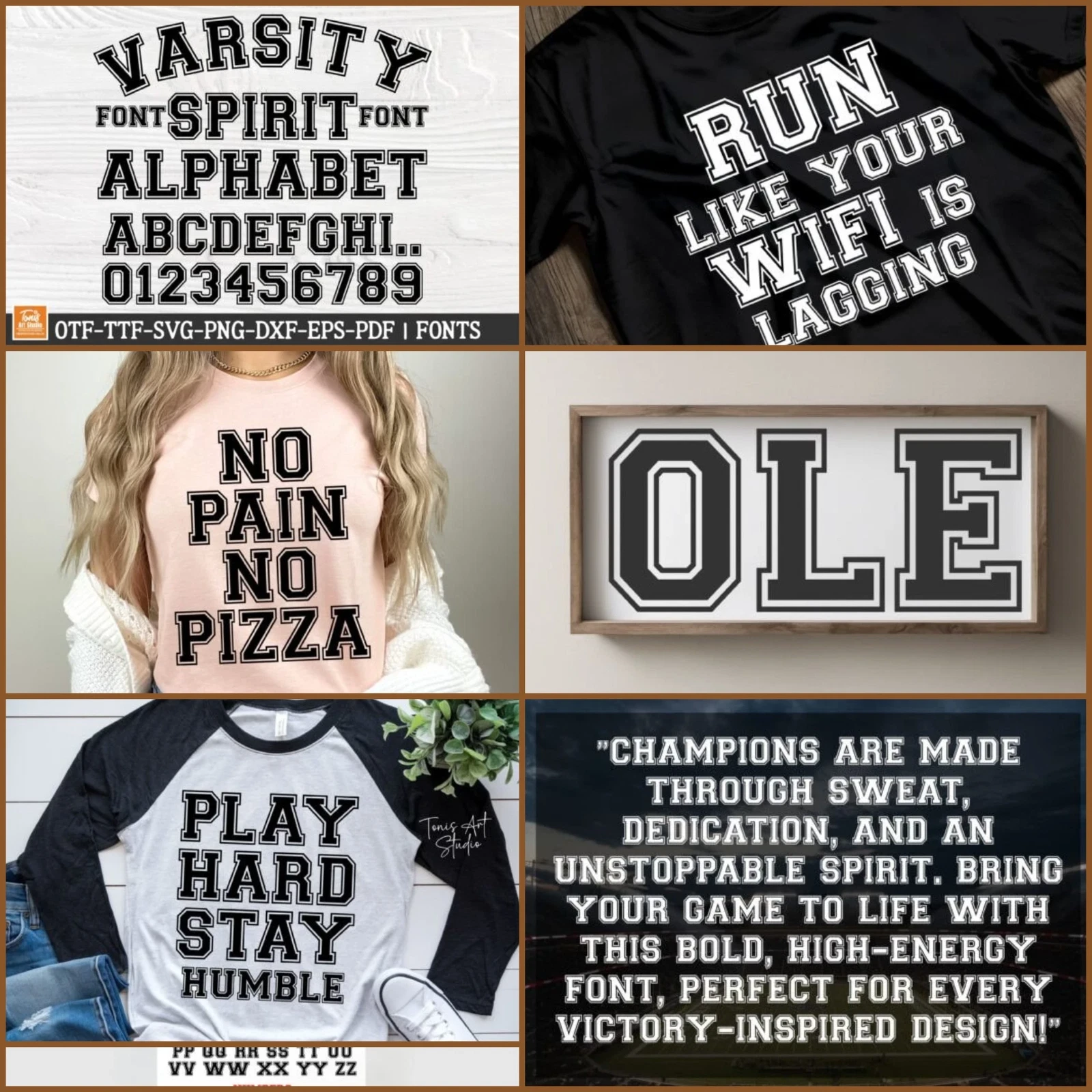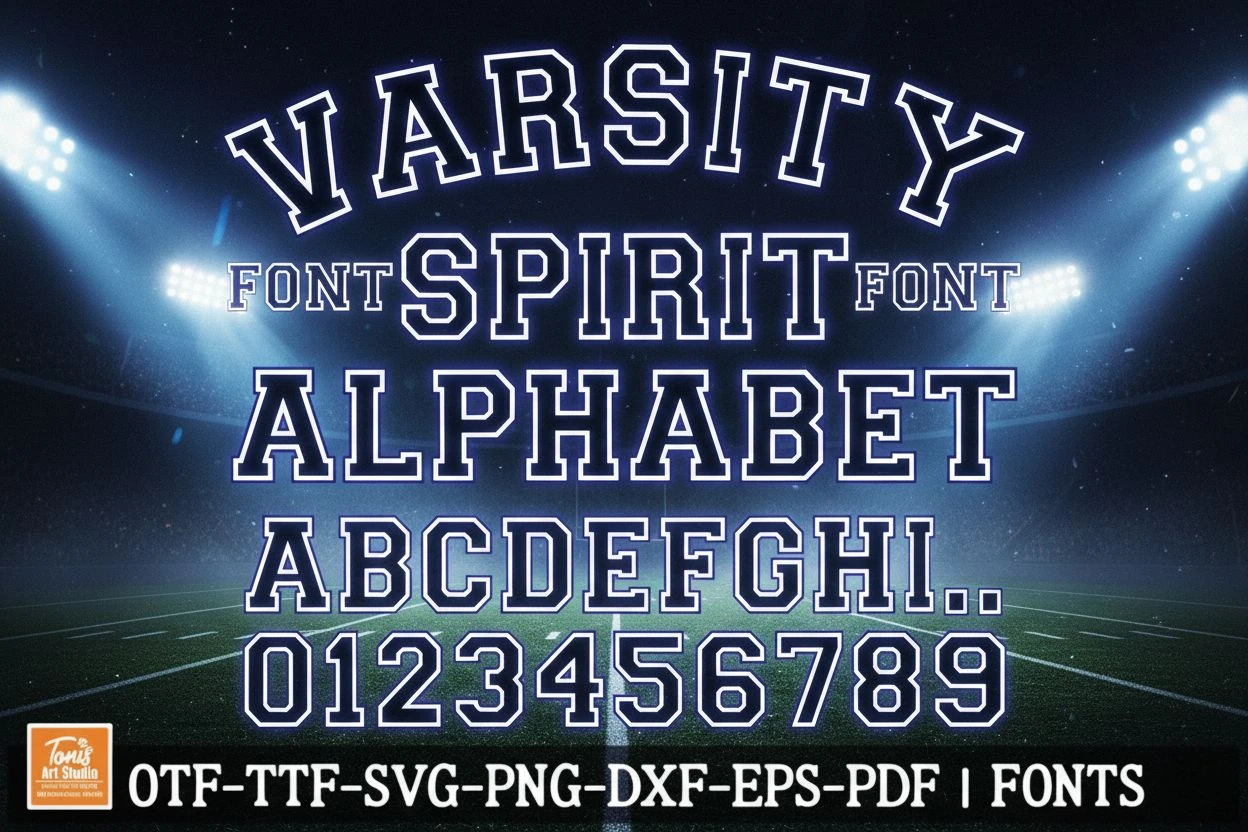
Bring classic campus energy to your projects with the Varsity Font SVG—a bold collegiate alphabet perfect for jerseys, school spirit designs, monograms, and athletic branding. The pack includes OTF, TTF, SVG, PNG, EPS, and PDF files, ready for Cricut, Silhouette, Canva, Illustrator, and Photoshop. Clean outlines and strong slab-serif letterforms cut beautifully on vinyl and print crisply for posters, banners, and team logos. Ideal for custom DIY projects, sports merch, game day graphics, and graduation gifts. Create standout headlines, number sets, and varsity monograms in minutes with this versatile display typeface.